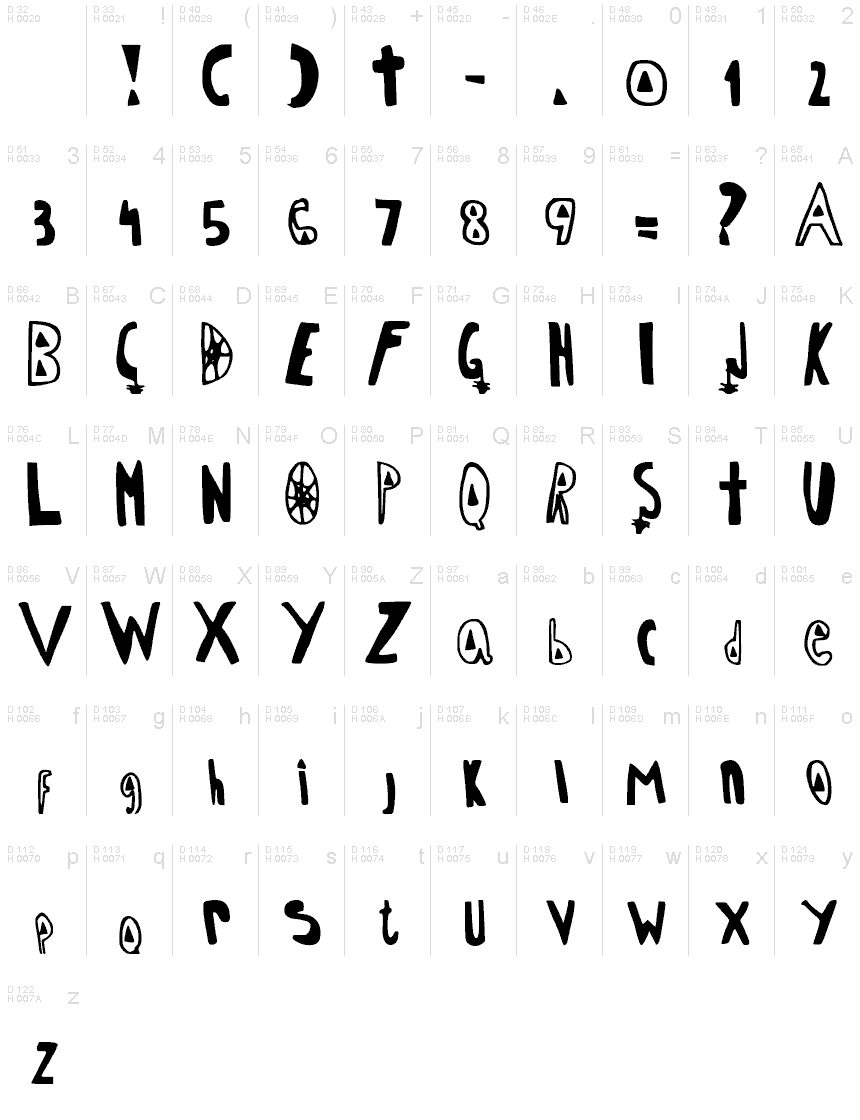
Hallowdrama Regular
Hallowdrama font by Ana Caroline Mendes is a scary display font with a character and form that looks like it came directly from a Halloween night of trick and treating. It is decorated, quicky, colorful, playful, eye-catching, eccentricity-filled but surprisingly still harmonious. These qualities make Hallowdrama an excellent choice to be experimented with in your graphic design projects this fall.